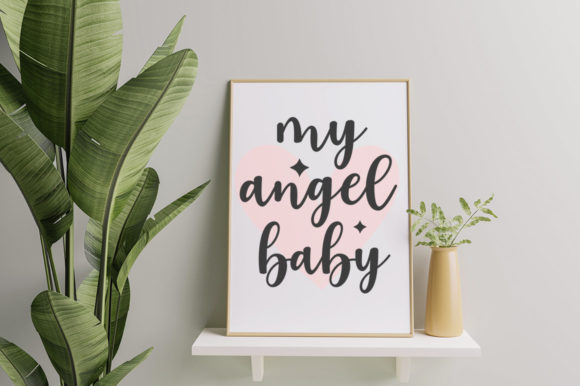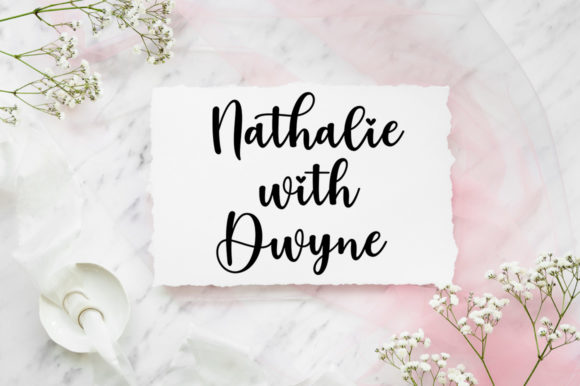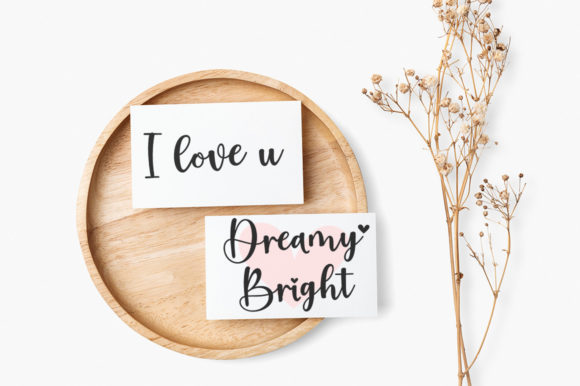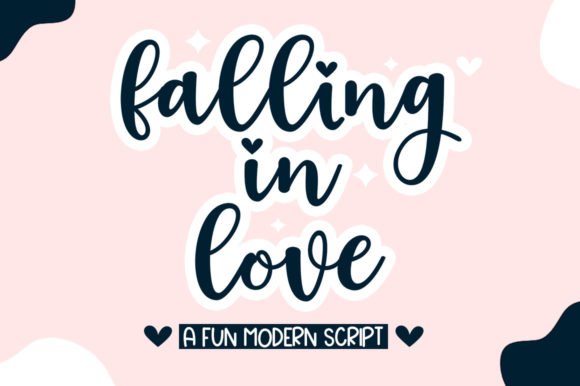
Falling In Love Script is a modern calligraphy design, including Regular.
This font is casual and beautiful with swash Can be used for various purposes.